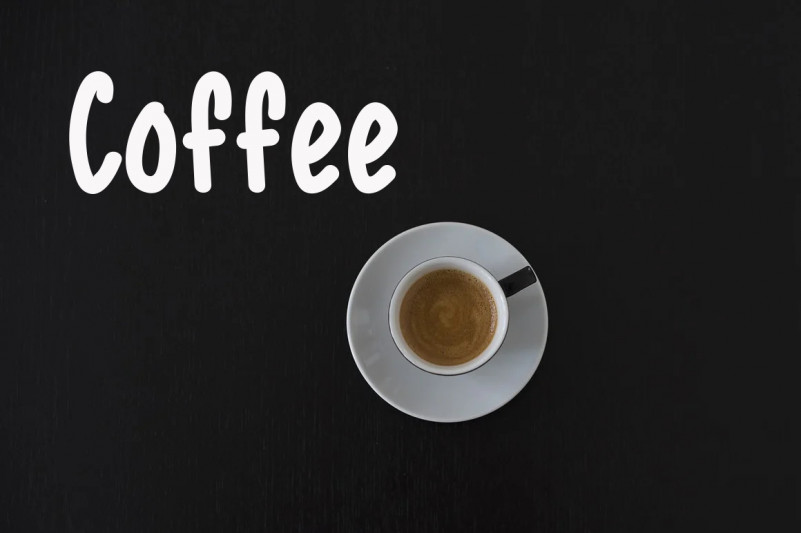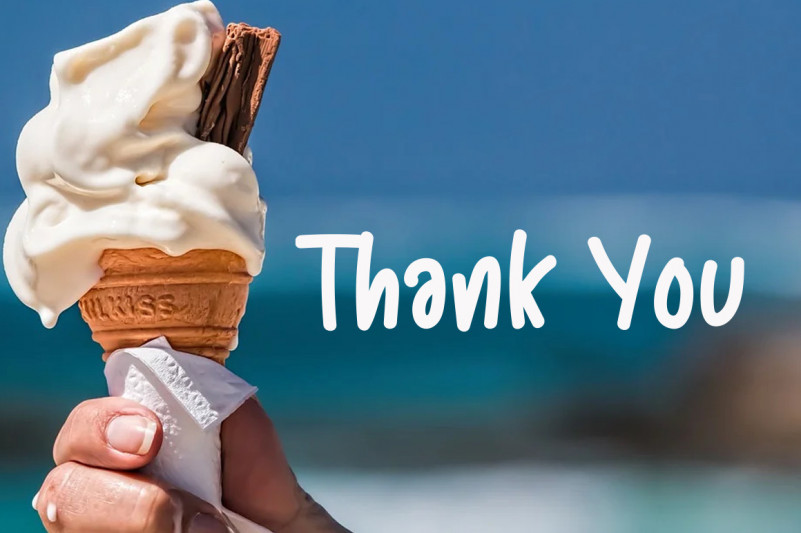
Marshmallow Font
It’s a simple, natural handwritten font. It can easily be matched to an incredibly large set of projects, so add it to your creative ideas and notice how it makes them stand out!